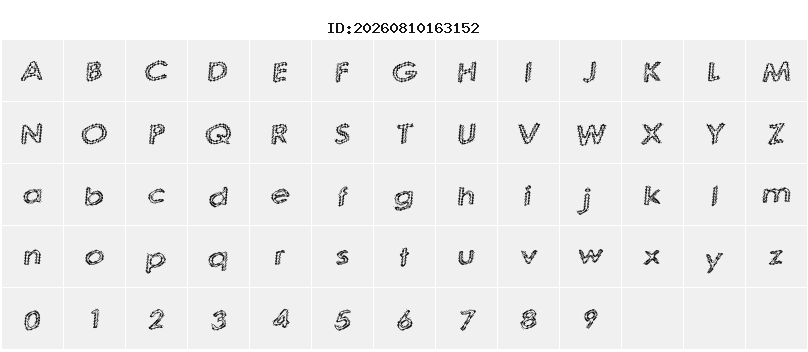
Quaverly G98 Preview
• Font Name: Quaverly G98
• Full Font Name: Quaverly G98
About Quaverly G98.ttf
Quaverly G98.ttf is a modern, elegant sans-serif font designed for ultimate readability and visual harmony. Perfect for branding, headlines, web design, and print materials.